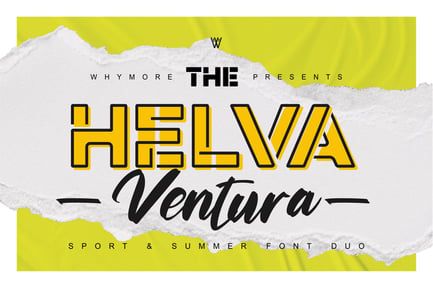
Helva Ventura: Versatile Font for Creative Designe
→ Versatile Design: Ideal for Sporty, Grunge, Tropical, and Summer styles. → Wide Applications: Perfect for sports events, music posters, movie posters, vacation posters, social media graphics, and any project celebrating freedom of expression. → Creative Freedom: Empowers designers to explore new styles and express their creativity without limits.